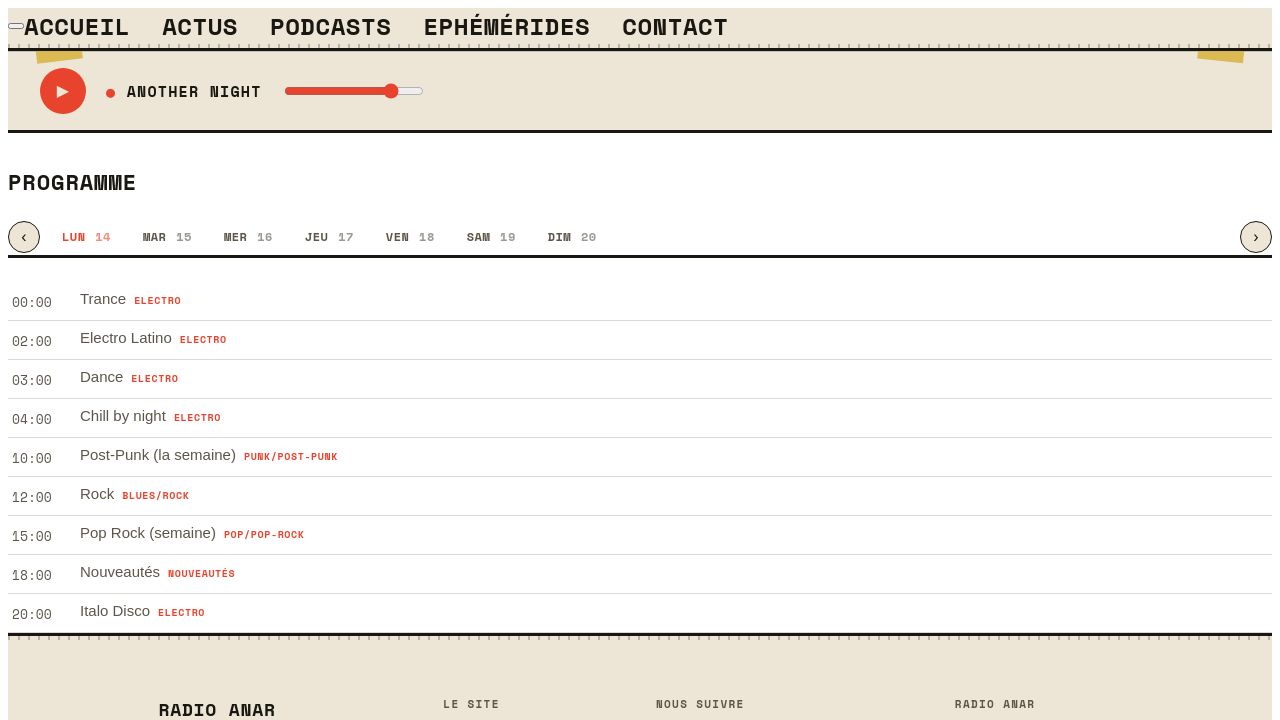
At radioanar.fm, the choice of Space Mono as the primary font reflects a commitment to a distinctive auditory experience in the radio industry. This custom typeface, available in weights 400 and 700, aligns with the site’s innovative and creative spirit, appealing to an audience that values unique soundscapes. The use of fallback fonts like Consolas, Menlo, and SF Mono ensures readability across various devices, reinforcing the brand's dedication to accessibility and user experience.
radioanar.fm primarily uses Space Mono, available in weights 400 and 700. It also includes fallback fonts like Consolas, Menlo, and SF Mono.
Space Mono offers a unique aesthetic with a modern twist, making it stand out compared to traditional monospace fonts like Consolas and Menlo, which are more conventional.
Space Mono includes styles in weights 400 (Regular) and 700 (Bold), allowing for versatile design options that enhance readability and visual appeal.